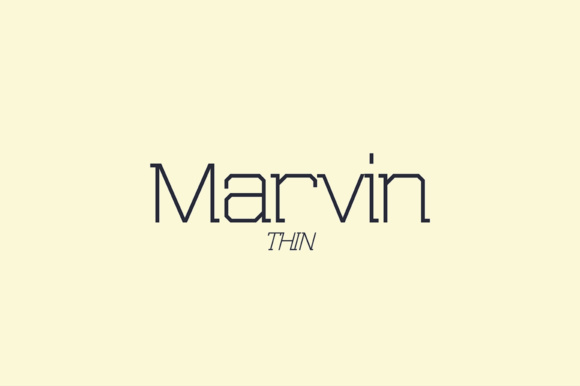
Marvin Thin Font
Unleash the allure of Marvin Thin, a breathtaking monoline slab serif font that spells simplicity and grace. This awe-inspiring creation by NREY is a stroke of genius, designed to captivate and allure in equal measure. With its clean lines, delicate curves, and minimalist charm, Marvin Thin is the epitome of understated elegance.
Immerse yourself in the world of Marvin Thin, where modern design and minimal concepts intertwine seamlessly. This font is a symphony of sophistication, radiating an air of timeless allure. Whether gracing a contemporary logo or adding a touch of class to a minimalist poster, Marvin Thin commands attention without overpowering. Its inherent beauty lies in its ability to elevate any design, transforming it into a visual masterpiece.
Experience the versatility of Marvin Thin, a font that defies creative boundaries. It effortlessly adapts to a myriad of design styles, from sleek and streamlined to warm and inviting. Its inherent charm shines through in both digital and print applications, making it the perfect choice for logos, branding, posters, flyers, brochures, and even wedding invitations. Unleash your creativity and witness the magic that Marvin Thin weaves into your designs.
Indulge in the timeless appeal of Marvin Thin, a font that transcends trends and fads. Its enduring beauty ensures that your designs will remain captivating for years to come. Embrace the power of Marvin Thin and elevate your creative projects to new heights.